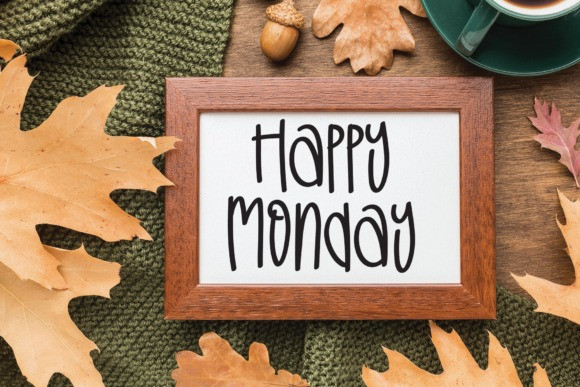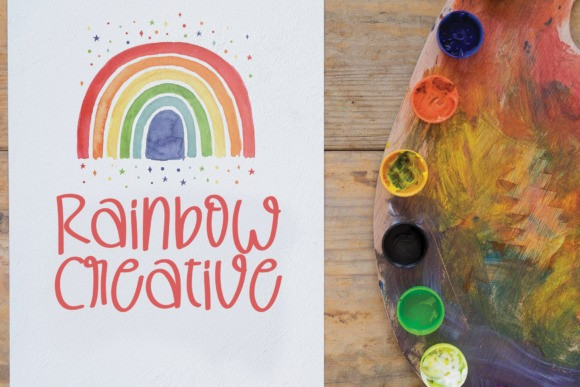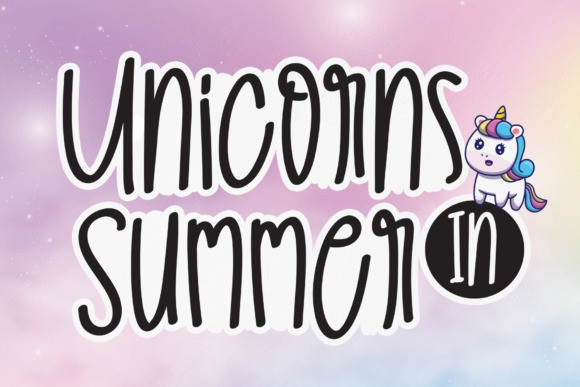
Summer Sale Display Font
Summer Sale is a sweet and unique display font. Its friendly feel makes this font incredibly versatile, fitting a wide range of contexts. Add it to your creative ideas and notice how it makes them stand out!